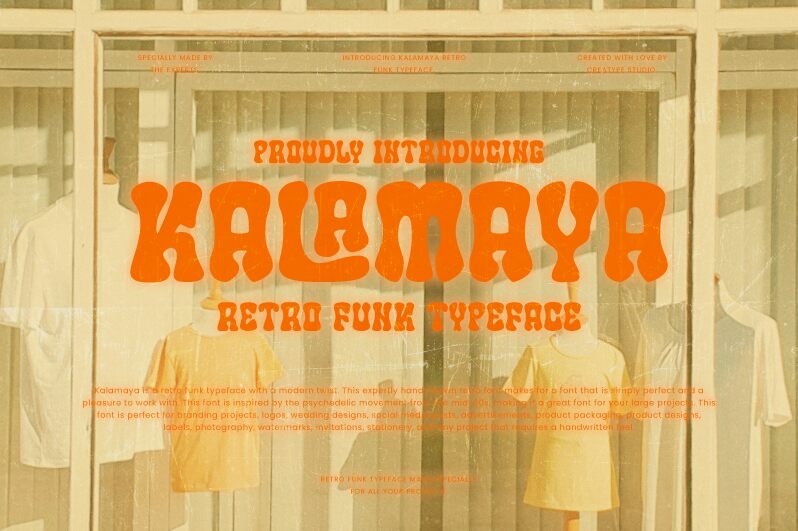
Kalamaya Regular
Kalamaya font by Creatype Studio is a free bold groovy display font. It swells and swoops like a lava lamp—chunky, bottom-heavy shapes with soft, inky edges and teardrop terminals that thicken at the curves. Caps show off playful flourishes and a roomy, puddled rhythm that reads loud at a glance, yet stays friendly and handcrafted up close.
Using Kalamaya, headlines pop on music posters, retro festival branding, drink labels, album covers, surf or skate graphics, sticker packs, and bold social promos. This free font loves oversized settings; give it breathing room and tighten tracking just a touch. Pair with a clean, neutral sans to let the bubbly forms sing without competition.